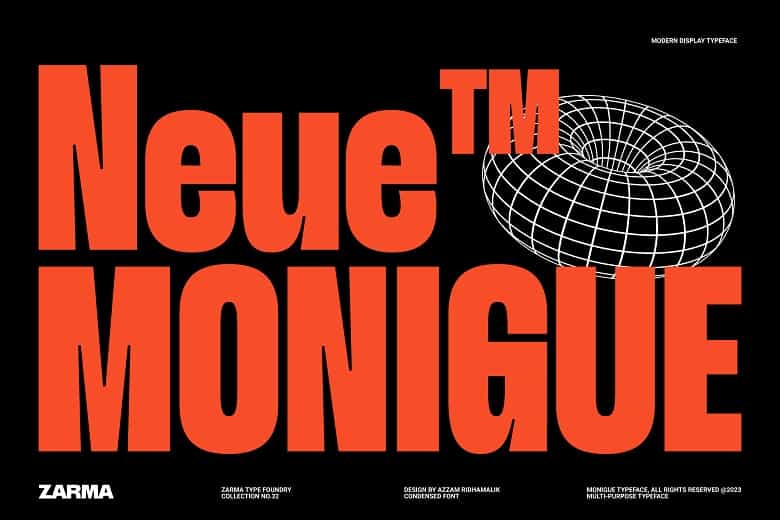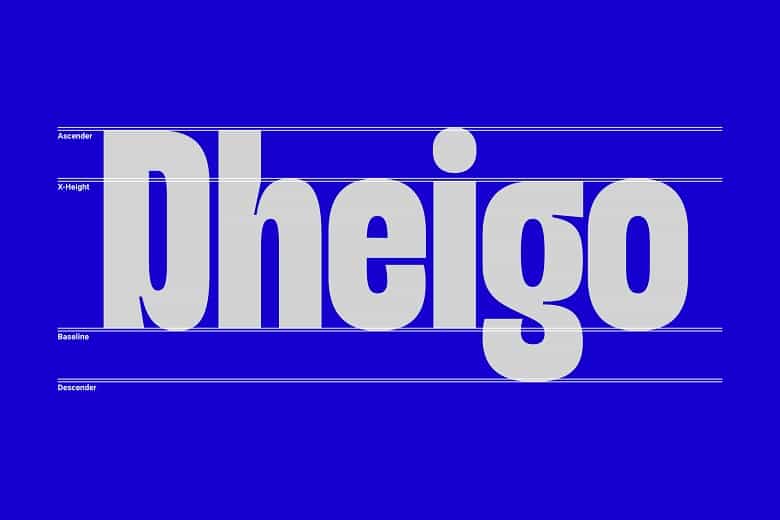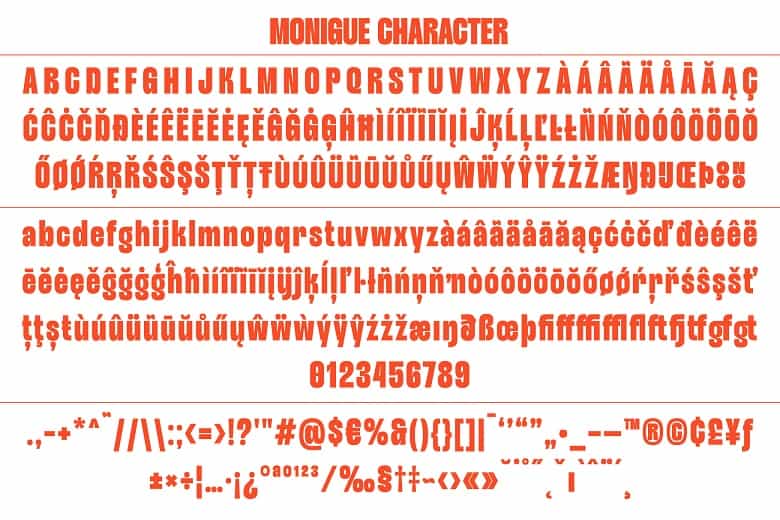
Monigue is a condensed bold sans-serif font that is definitely not afraid to be noticed. Monigue looks to the clean lines of contemporary design of the 2000’s and revives this tradition with a contemporary approach. This particular font is perfect for designing great looking posters, attracting headlines for your website, and elegant interface designs.